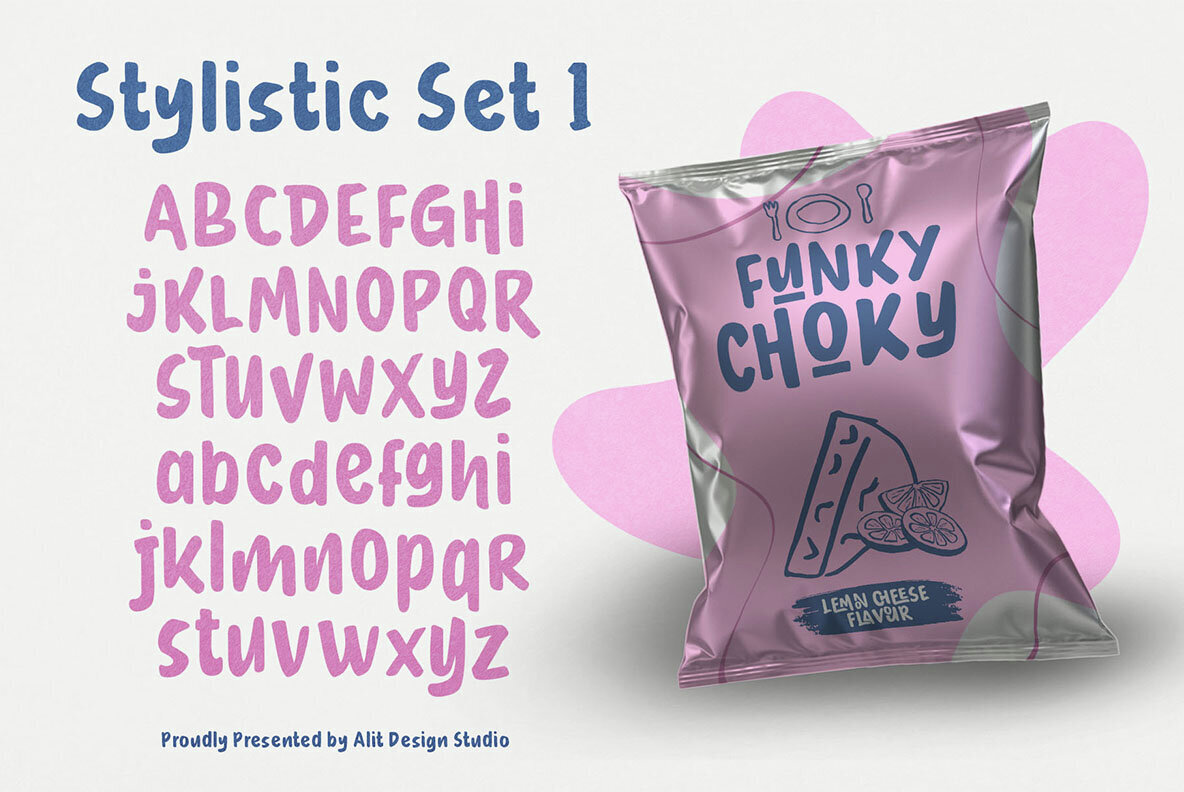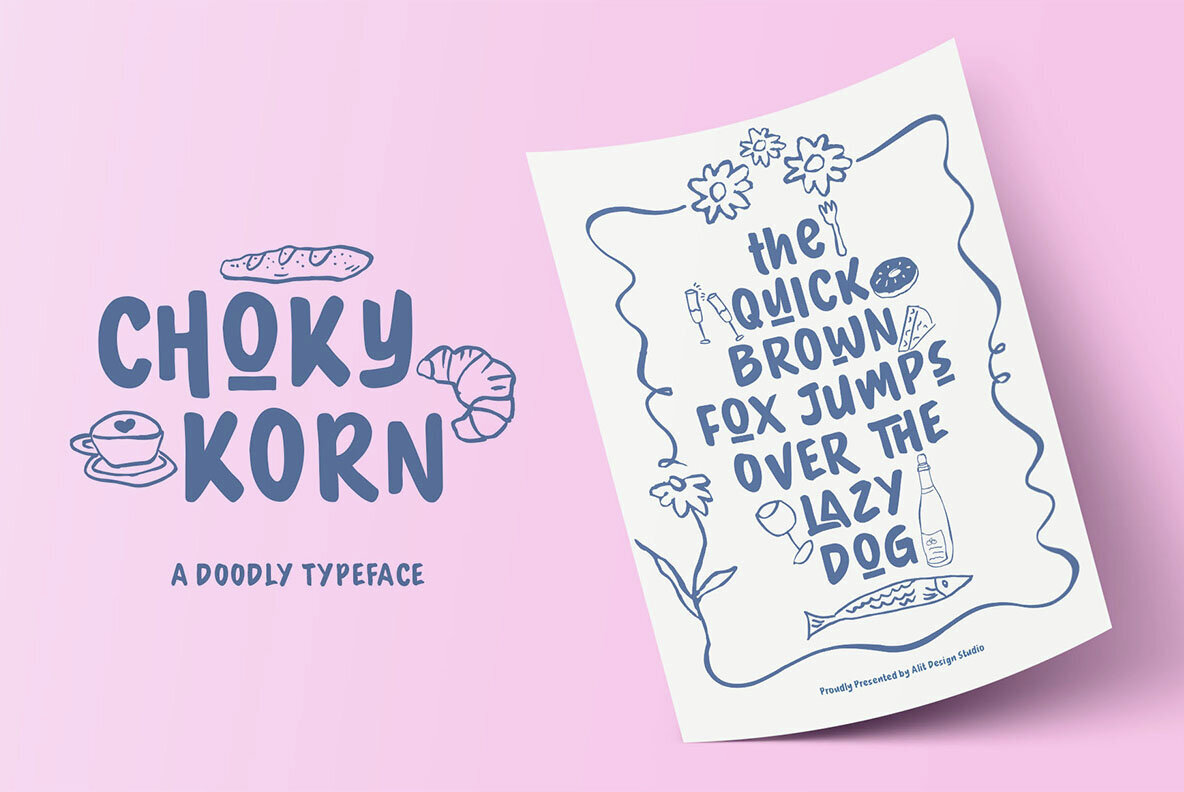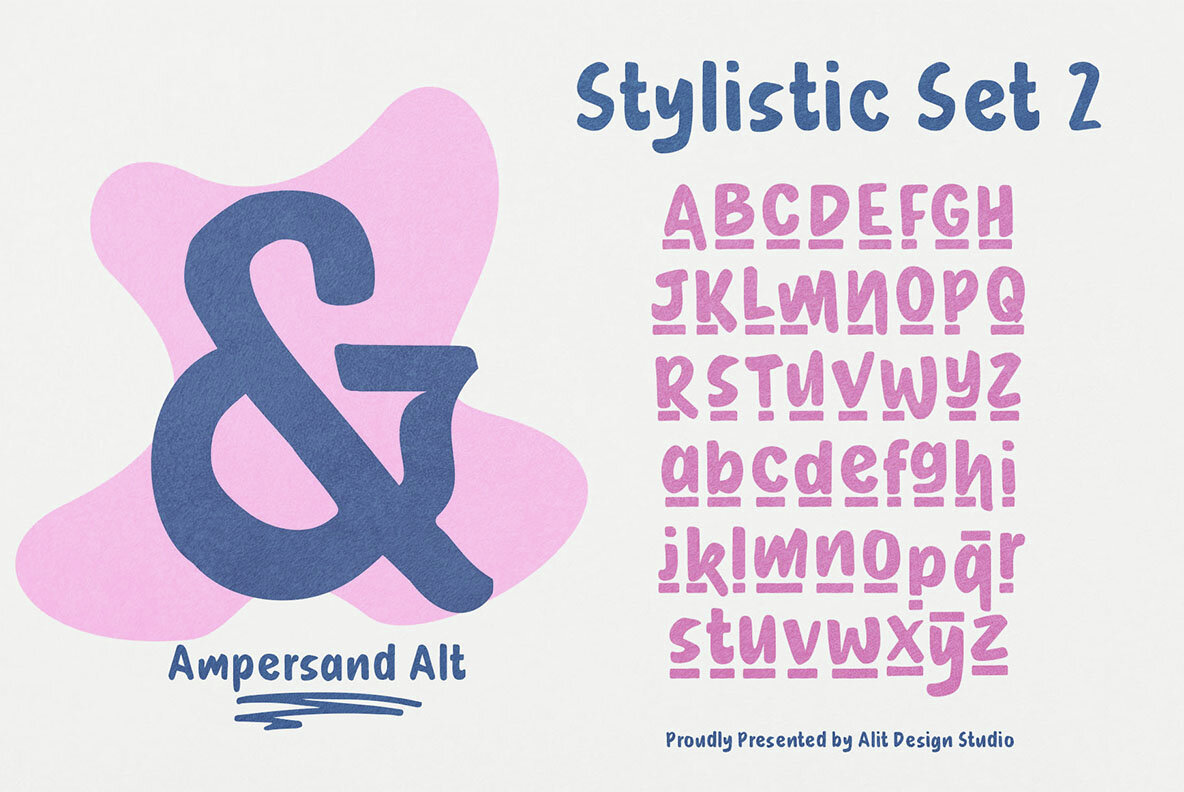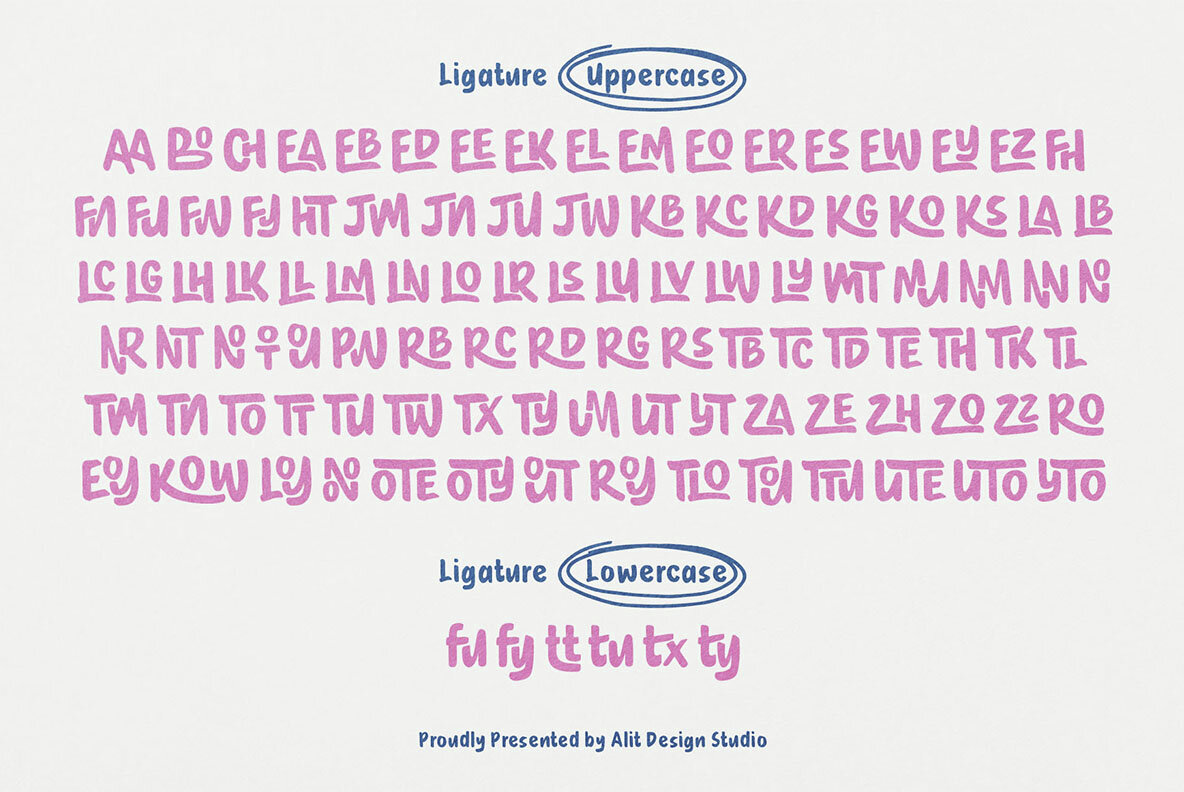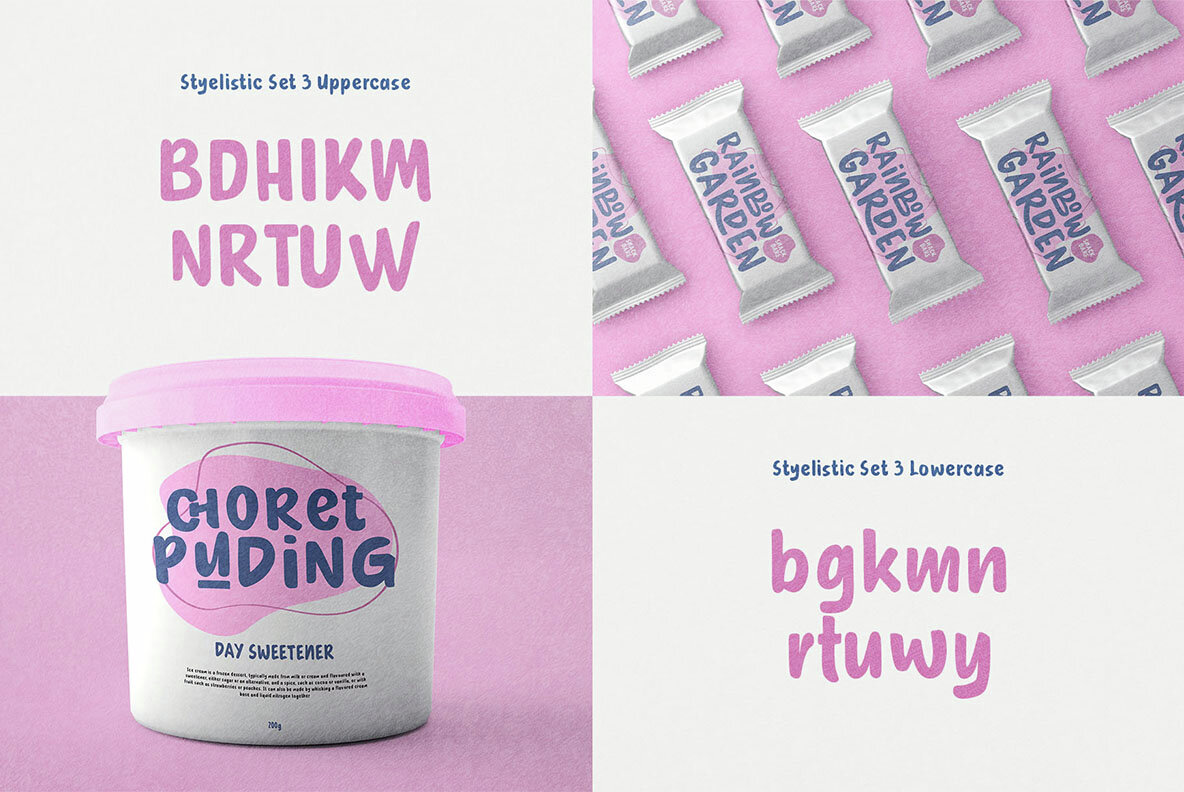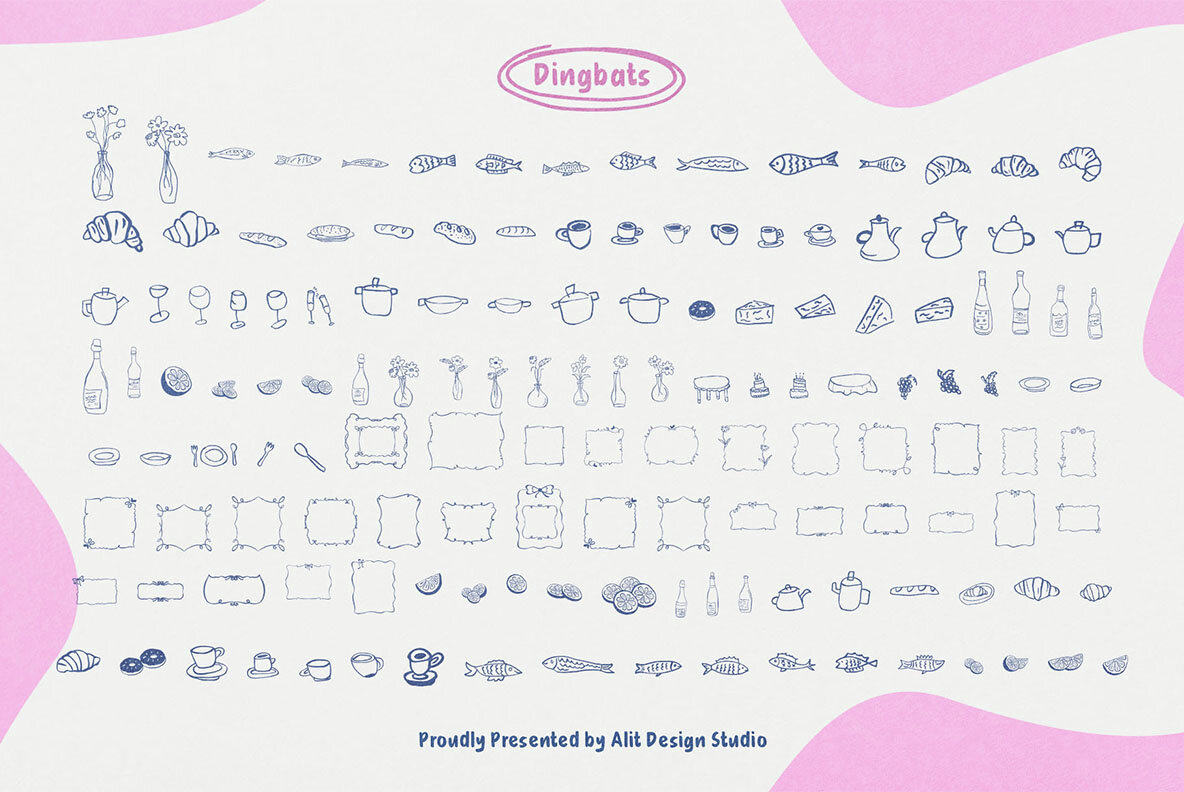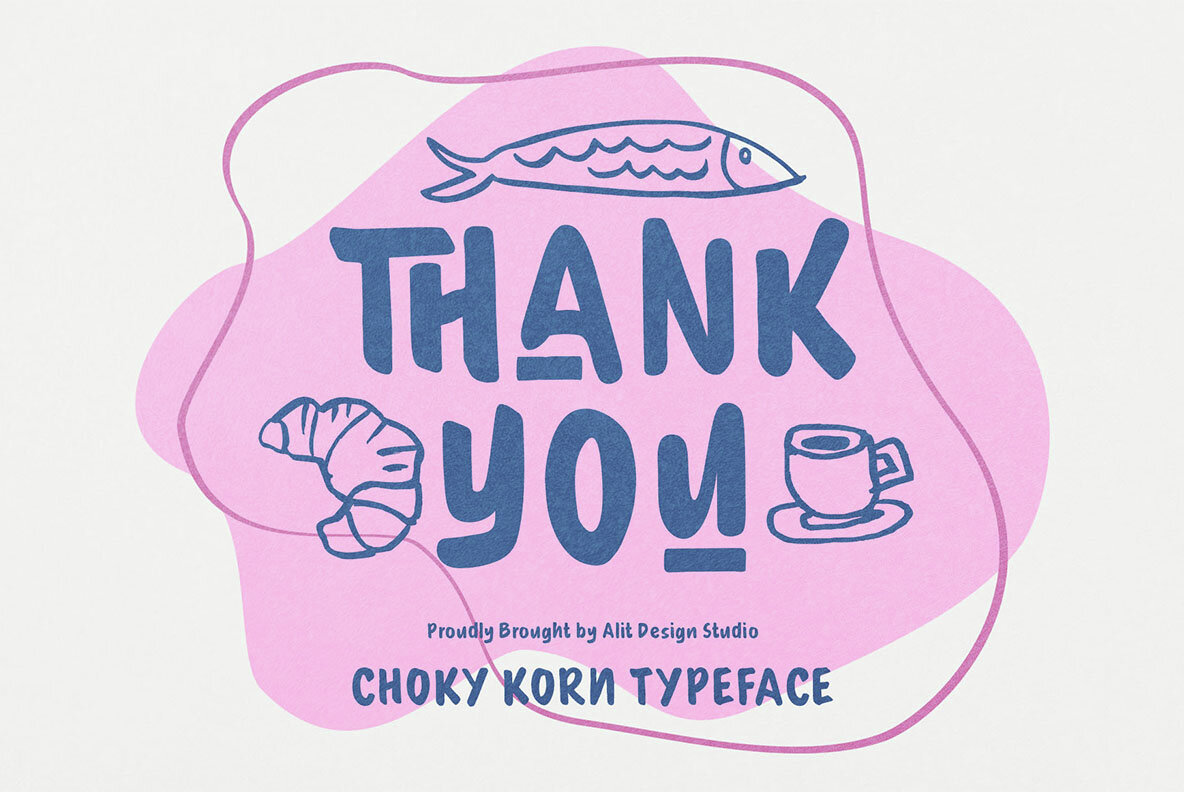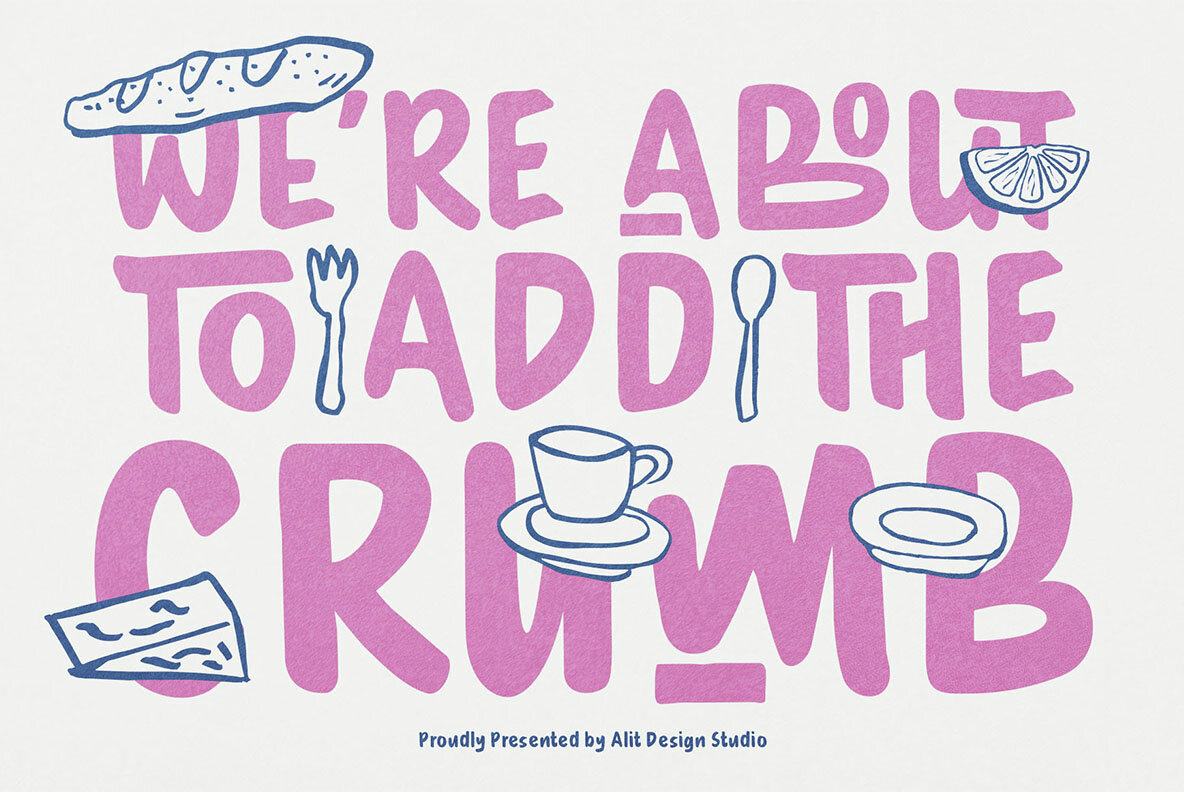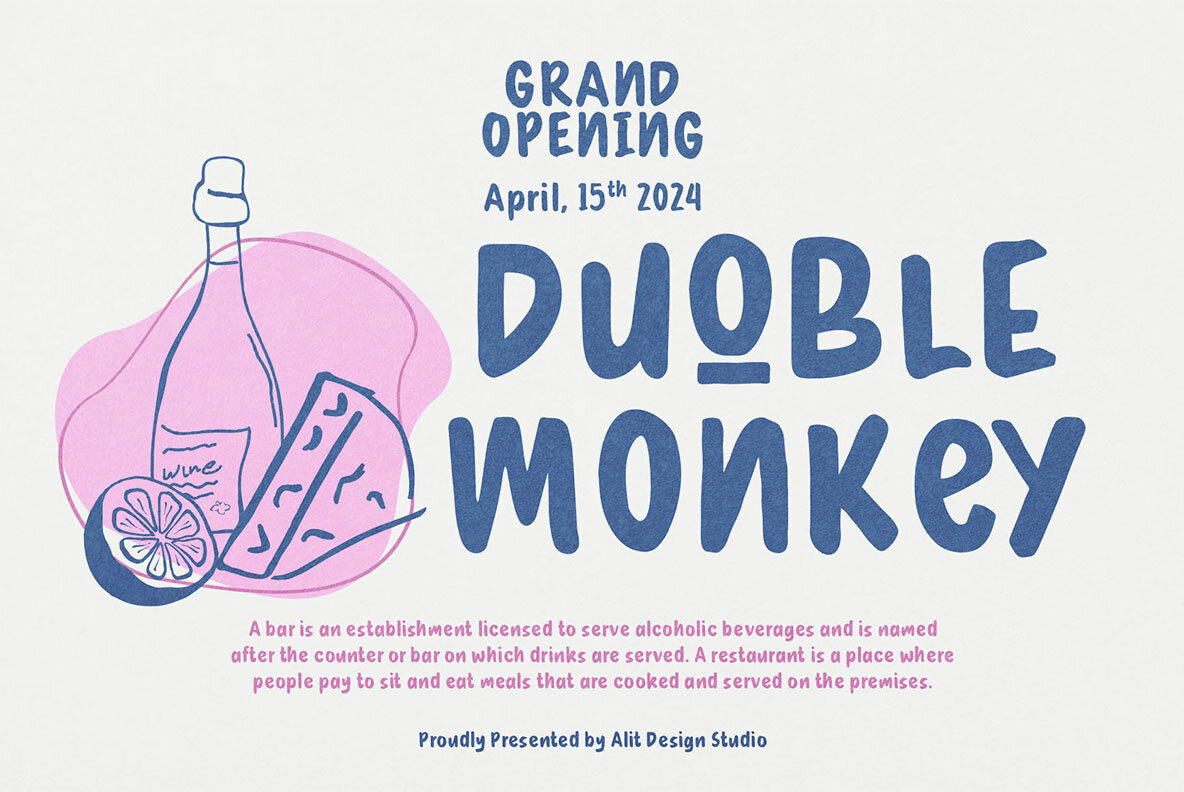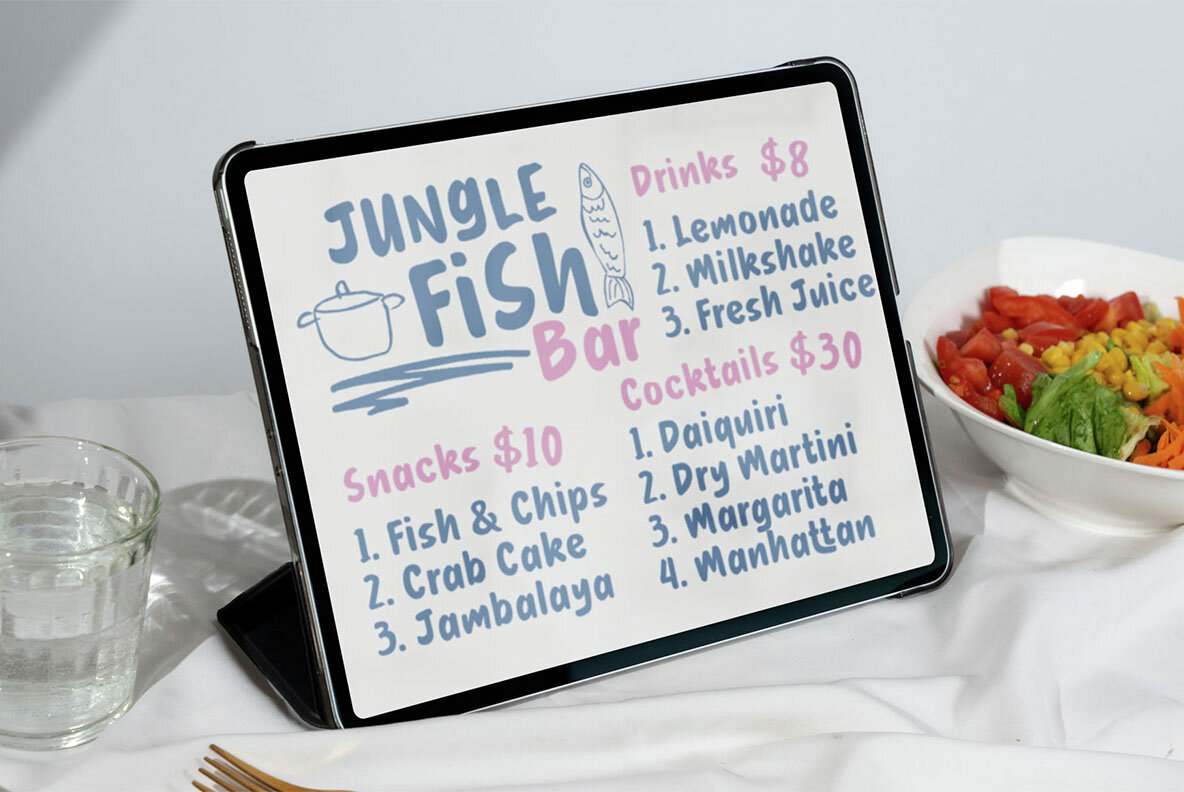
Choky Korn Font
Introducing "Choky Korn" - where whimsy meets sleek sophistication in the world of typography. Embark on a journey through the whimsical wonderland of fonts with Choky Korn. With its naive handwittern foundation, this font captivates with its playful charm and effortless elegance. Each stroke exudes a sense of childlike innocence, yet its slank style adds a touch of contemporary flair, making it perfect for a wide range of projects. Choky Korn is more than just a font; it's a storyteller, ready to weave tales of imagination and creativity. Whether you're crafting invitations for a whimsical wedding, designing a logo for a trendy boutique, or adding a touch of charm to your branding materials, Choky Korn effortlessly elevates your projects to new heights. Its versatility knows no bounds, seamlessly blending into any design aesthetic while adding a touch of personality and character. From posters to packaging, from digital to print, Choky Korn brings a fresh perspective to your creative endeavors. Experience the magic of Choky Korn and let your imagination run wild as you explore the endless possibilities of this enchanting font.